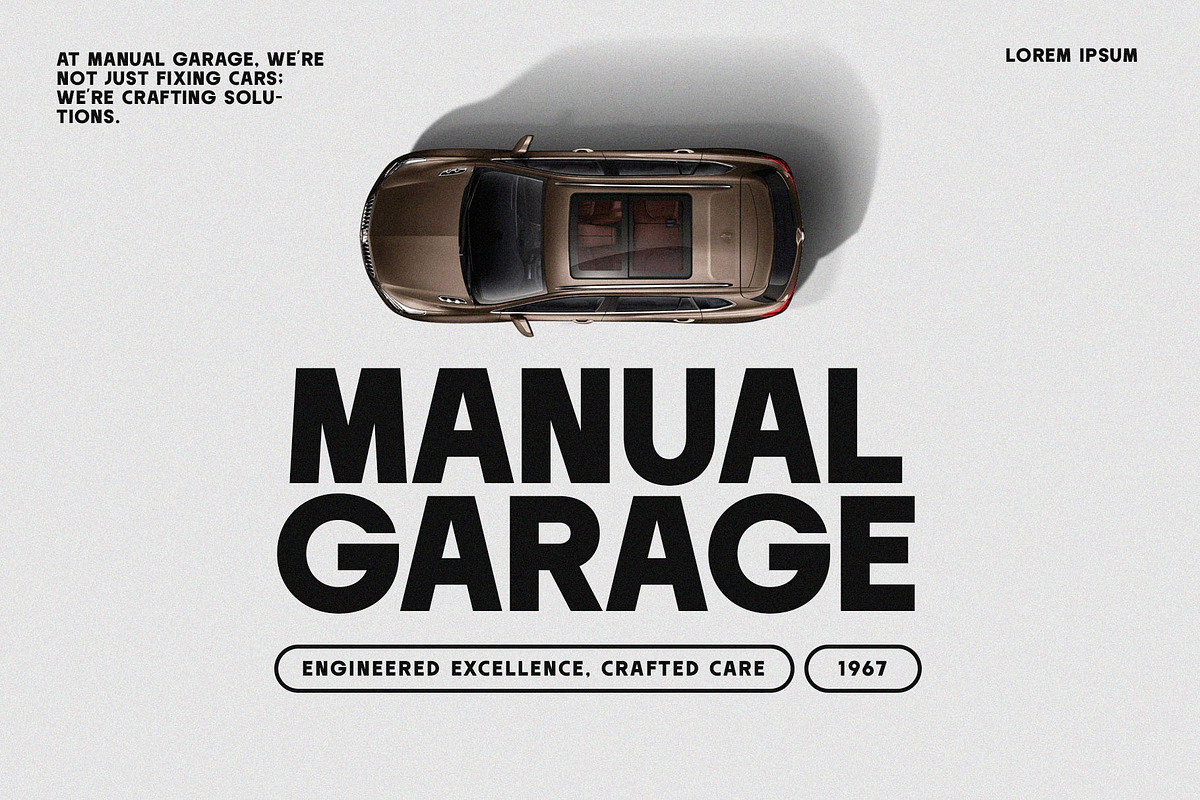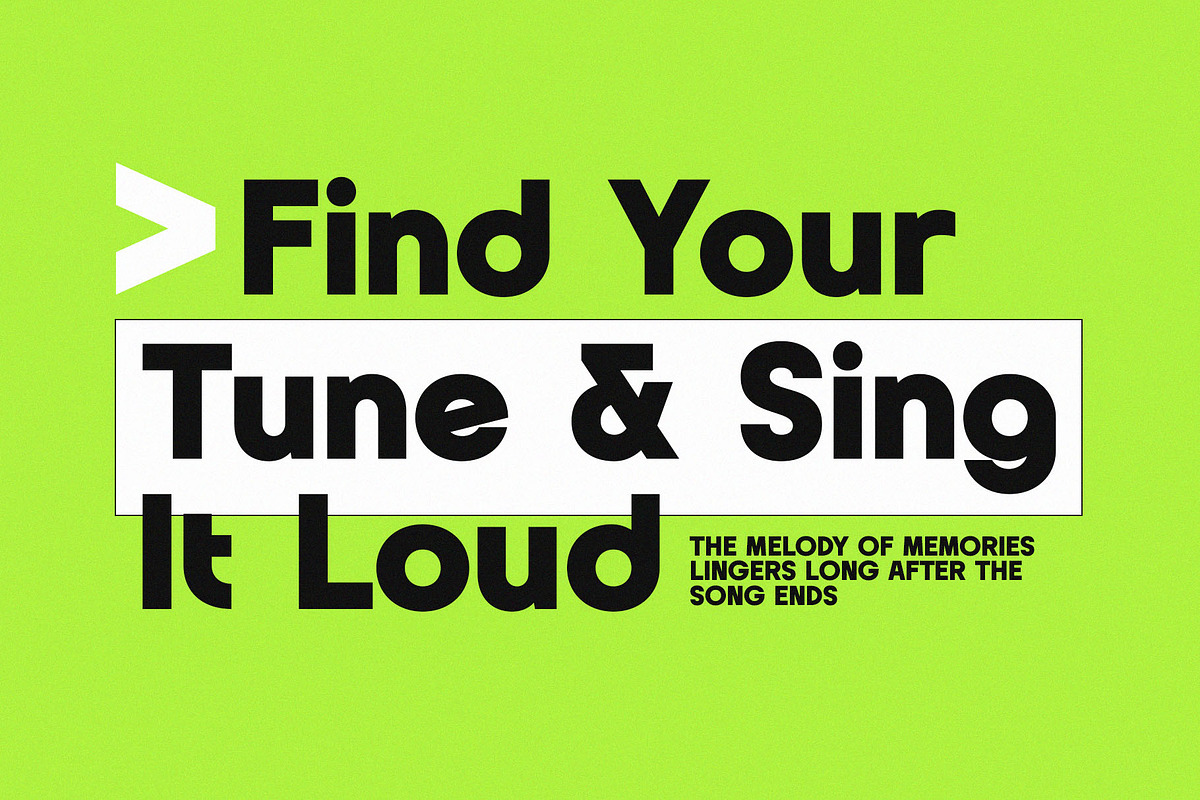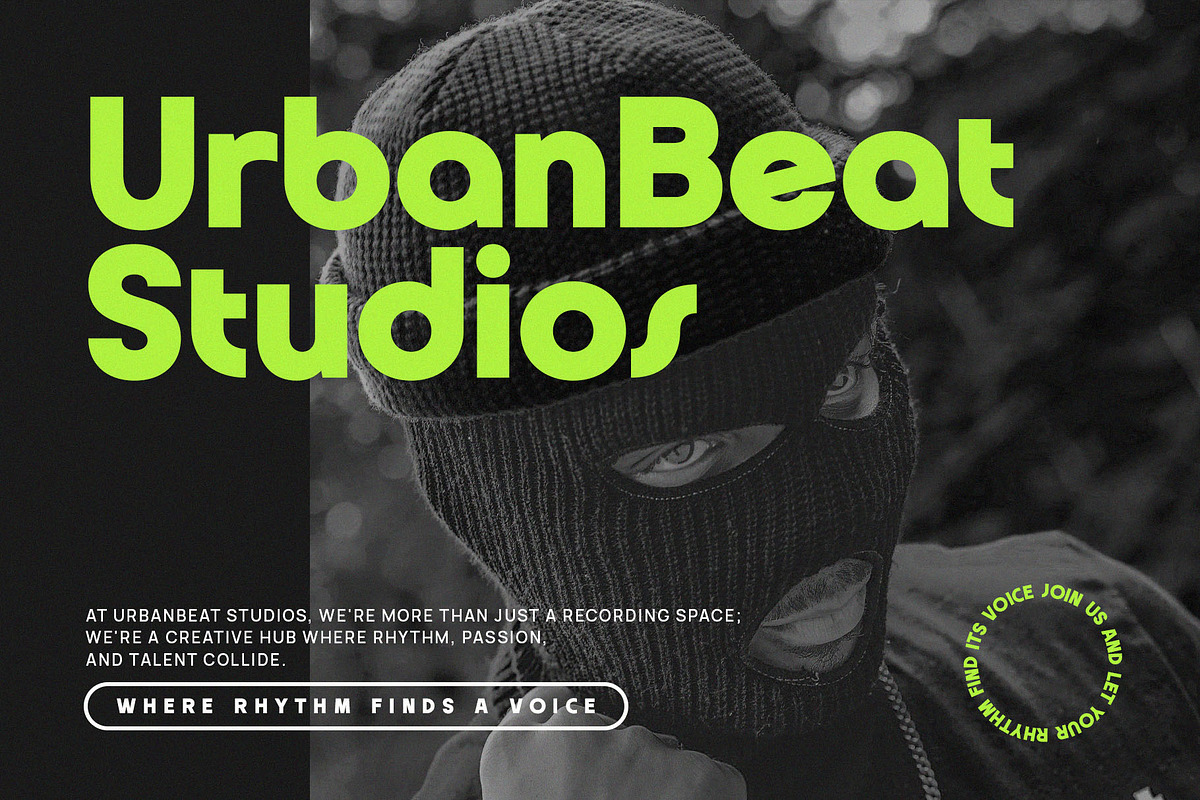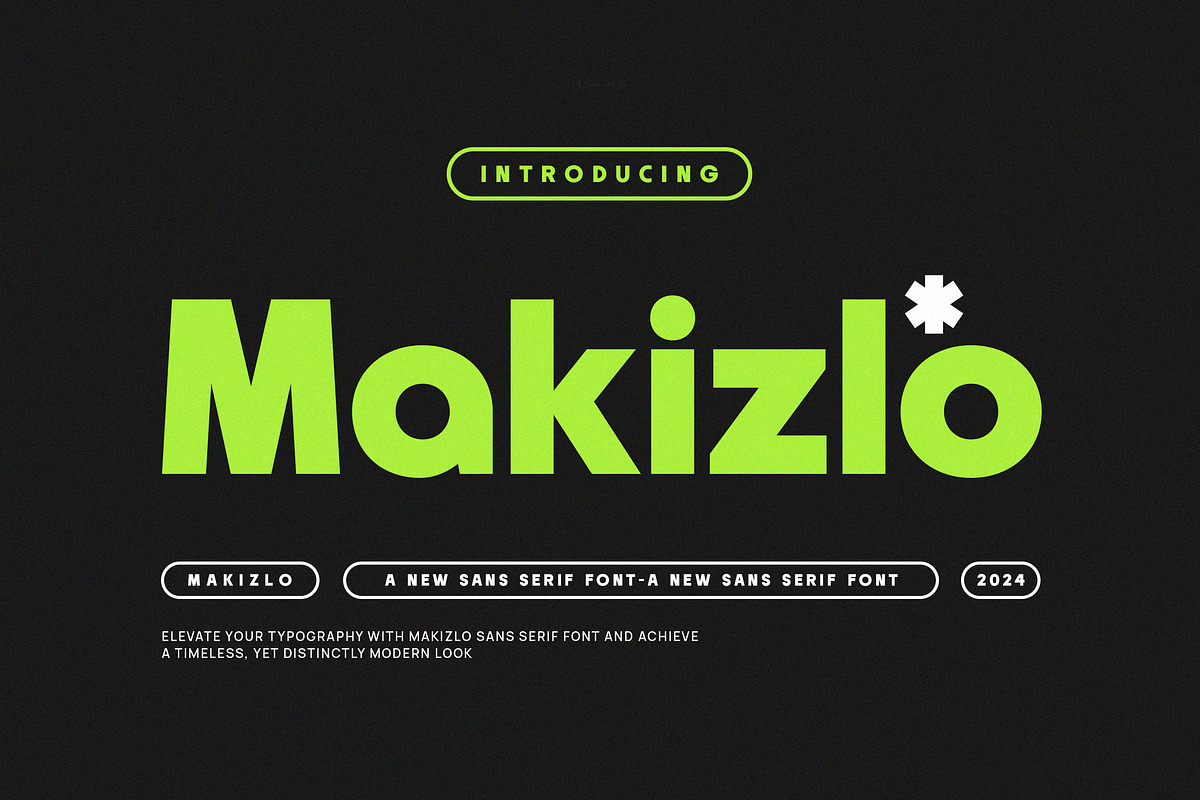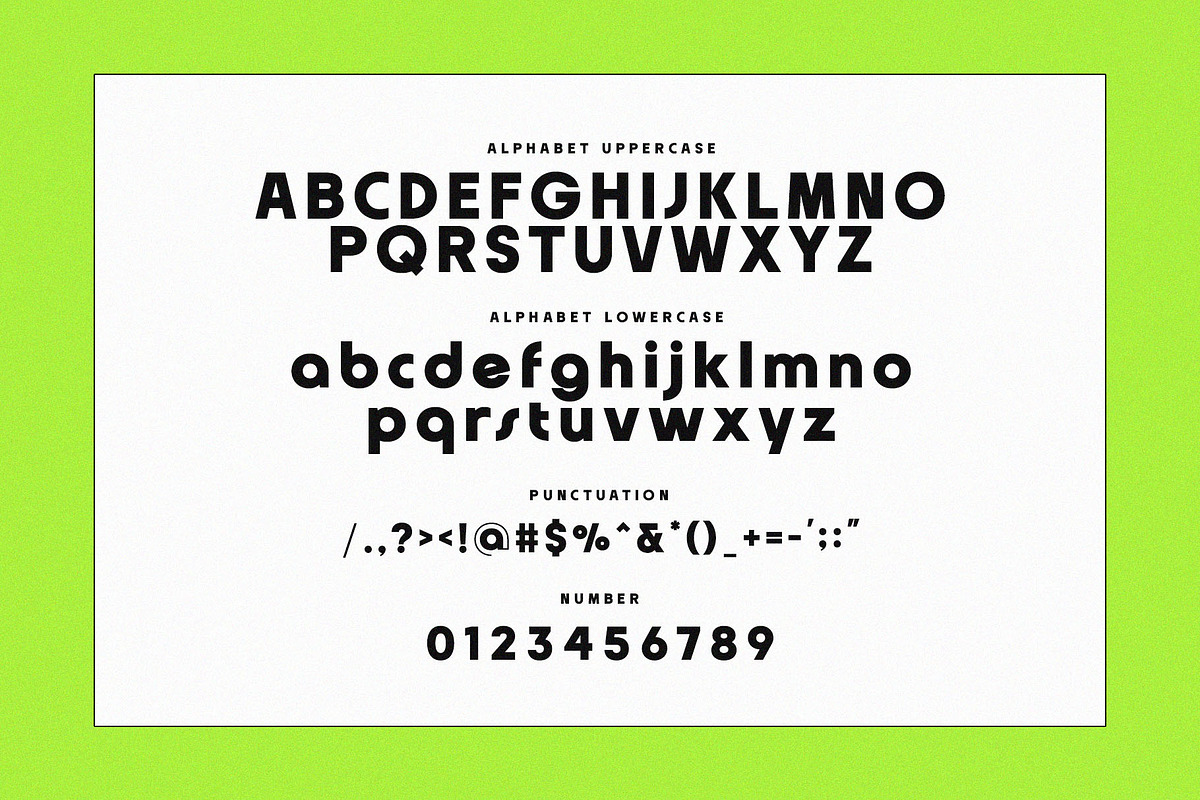
Makizlo - Modern Stylish Sans Serif
Introducing Makizlo - Modern Stylish Sans Serif. Makizlo is a modern and simple font, best used as a display for headings, logos, branding, magazines, product packaging and invitations. Thank you.